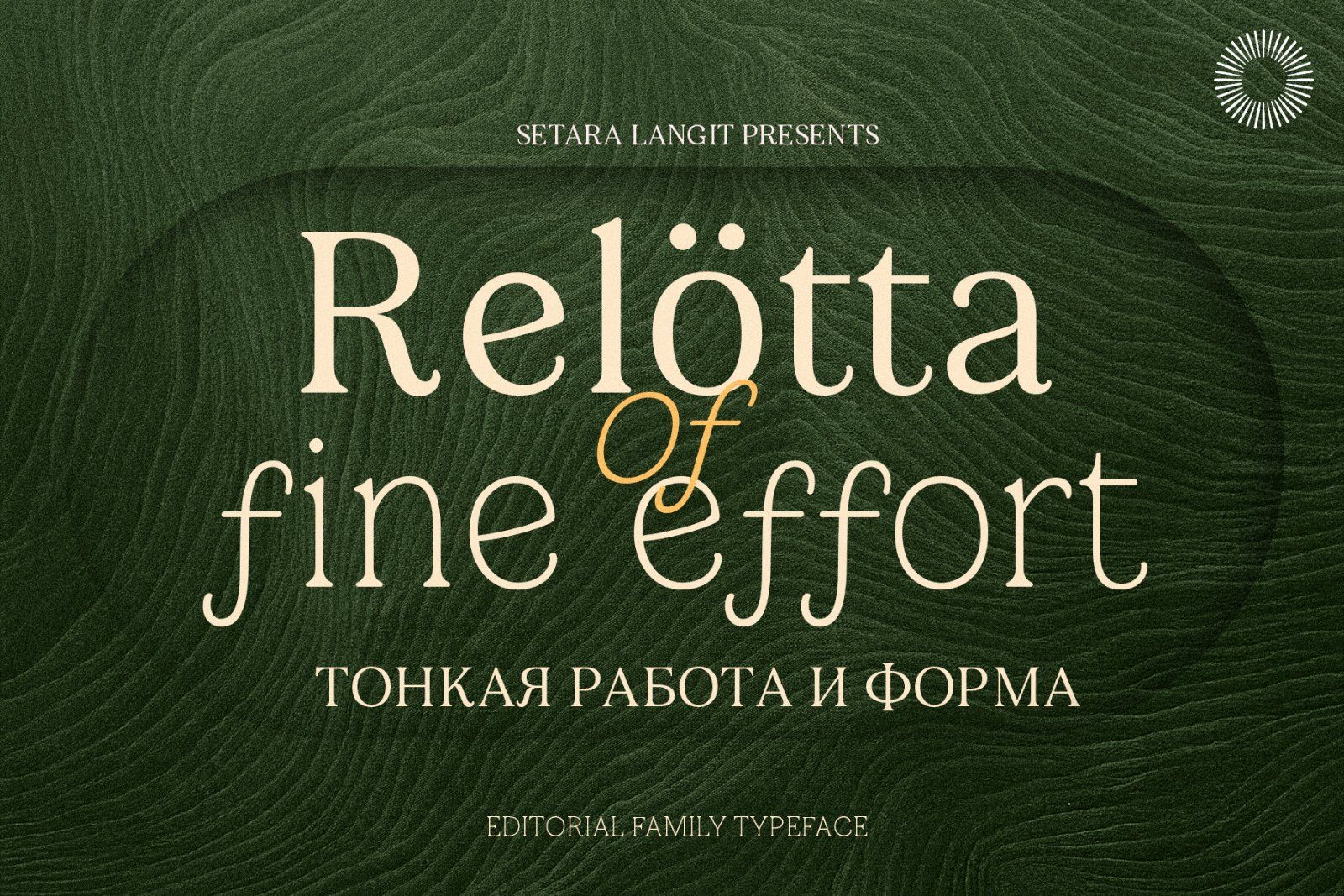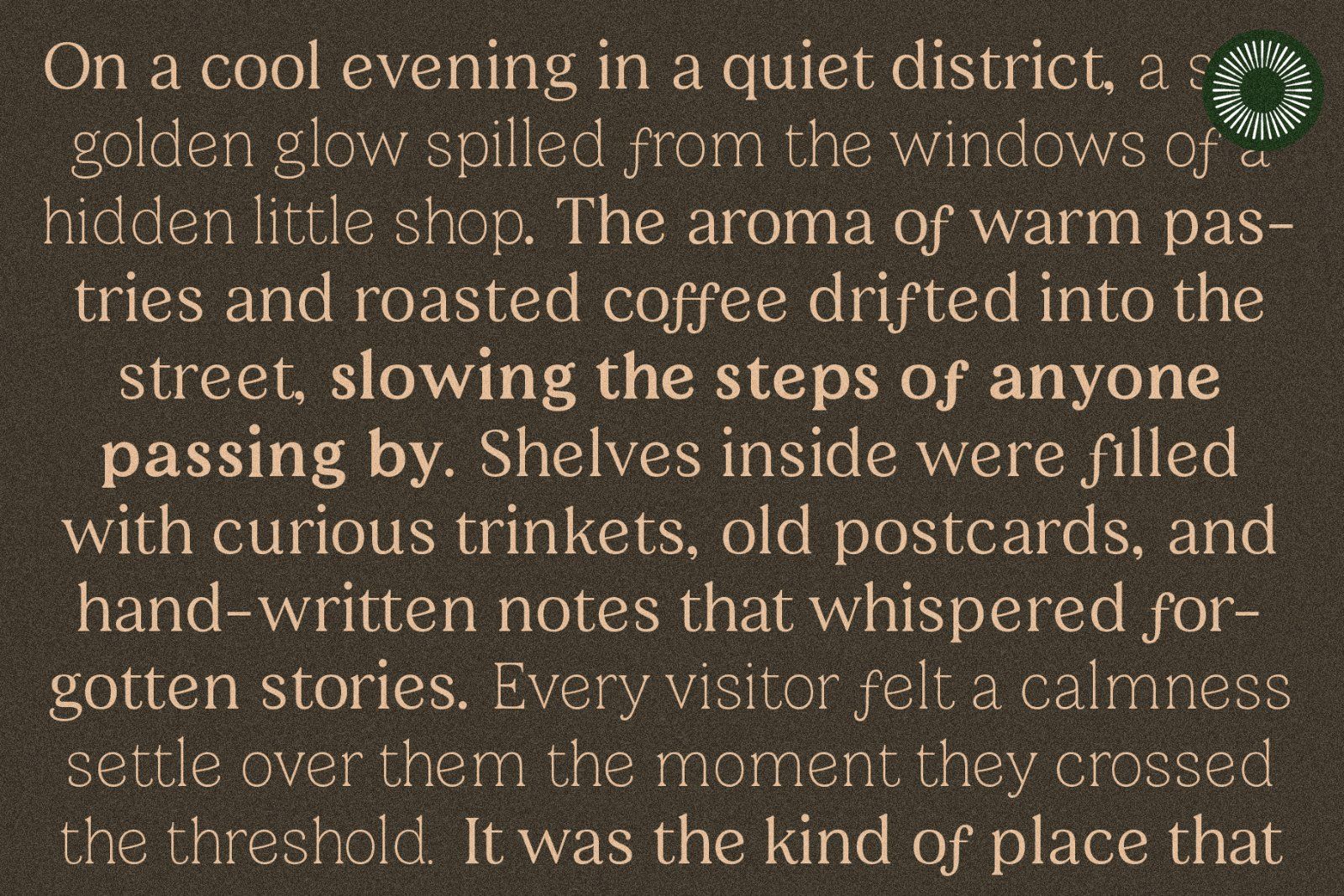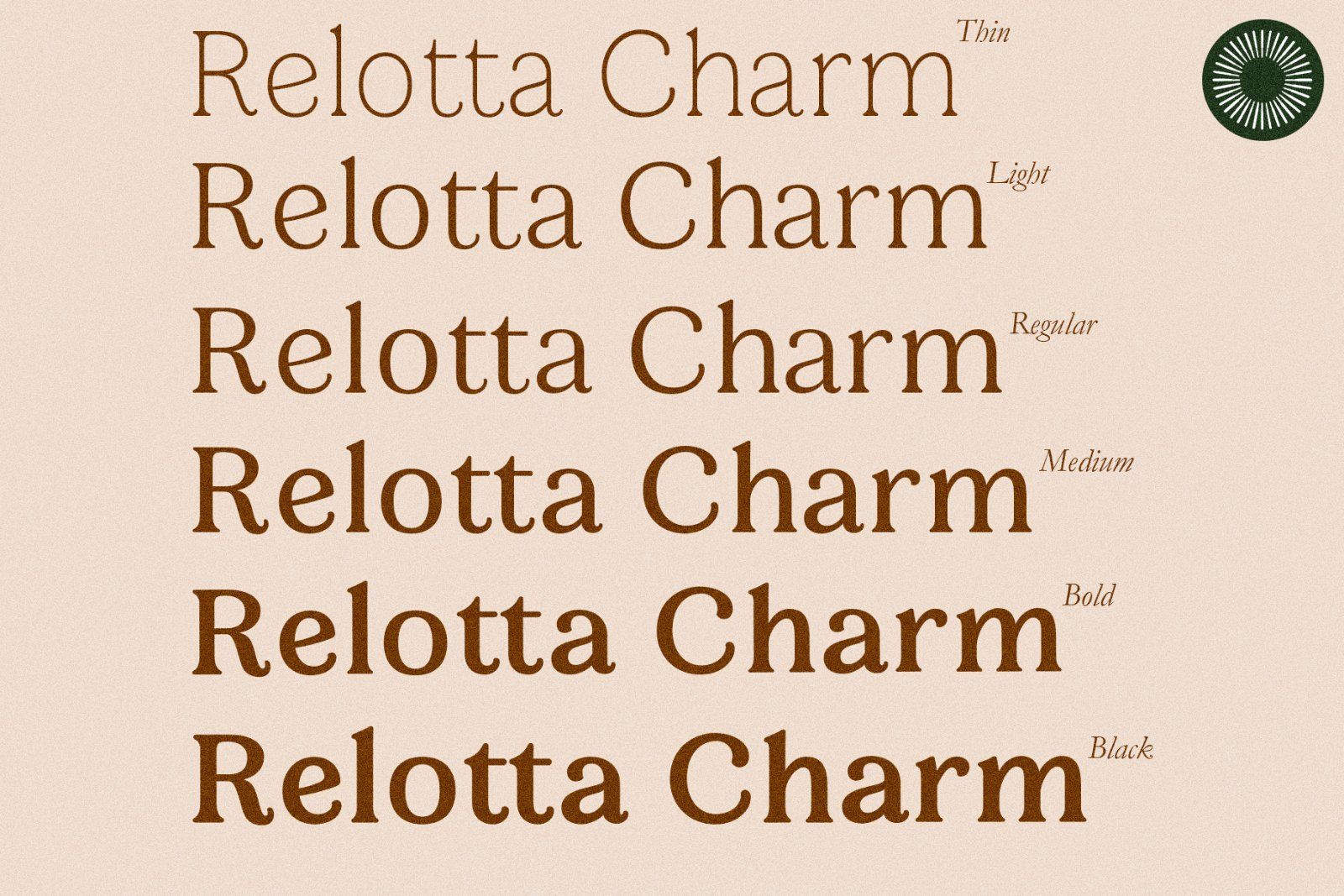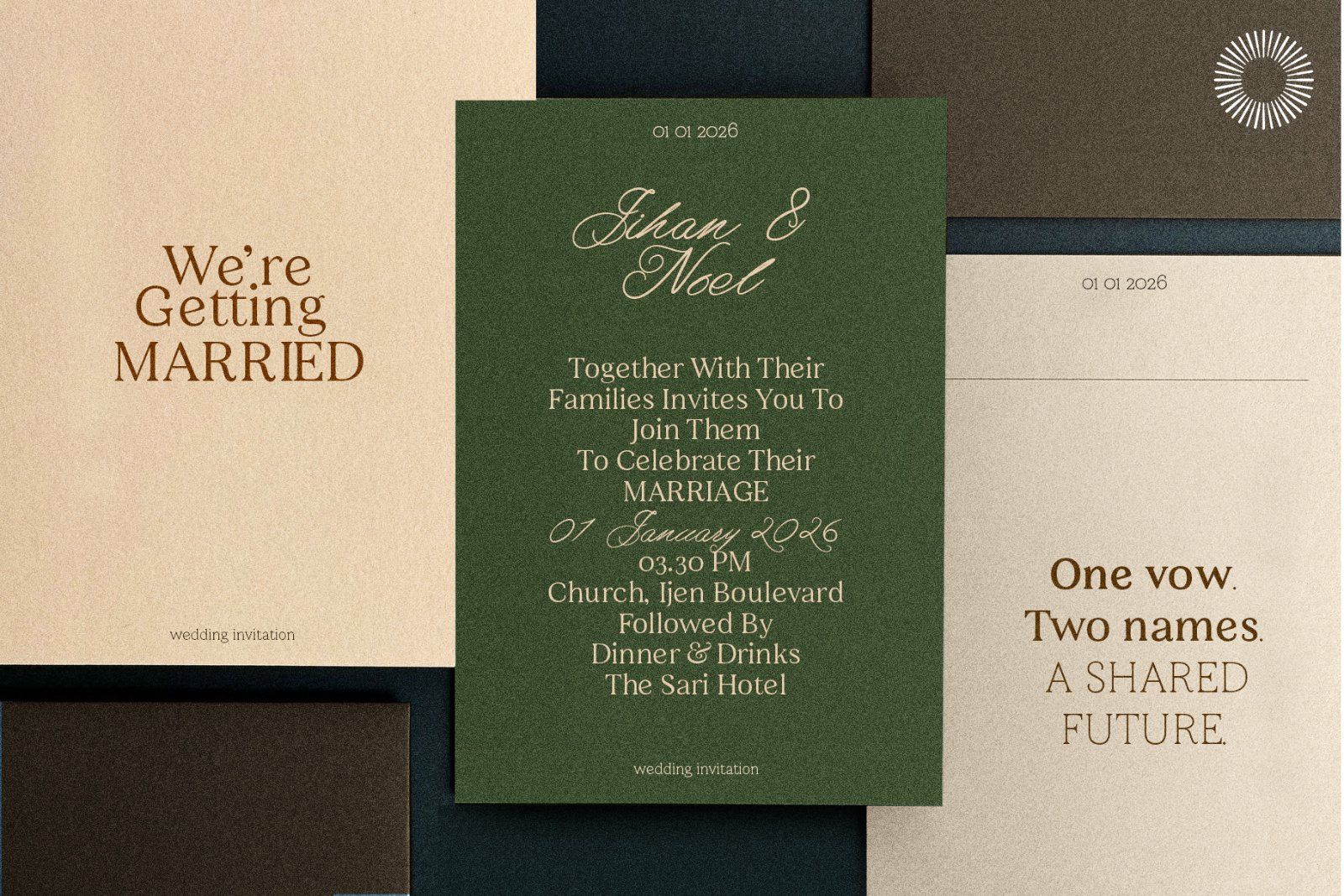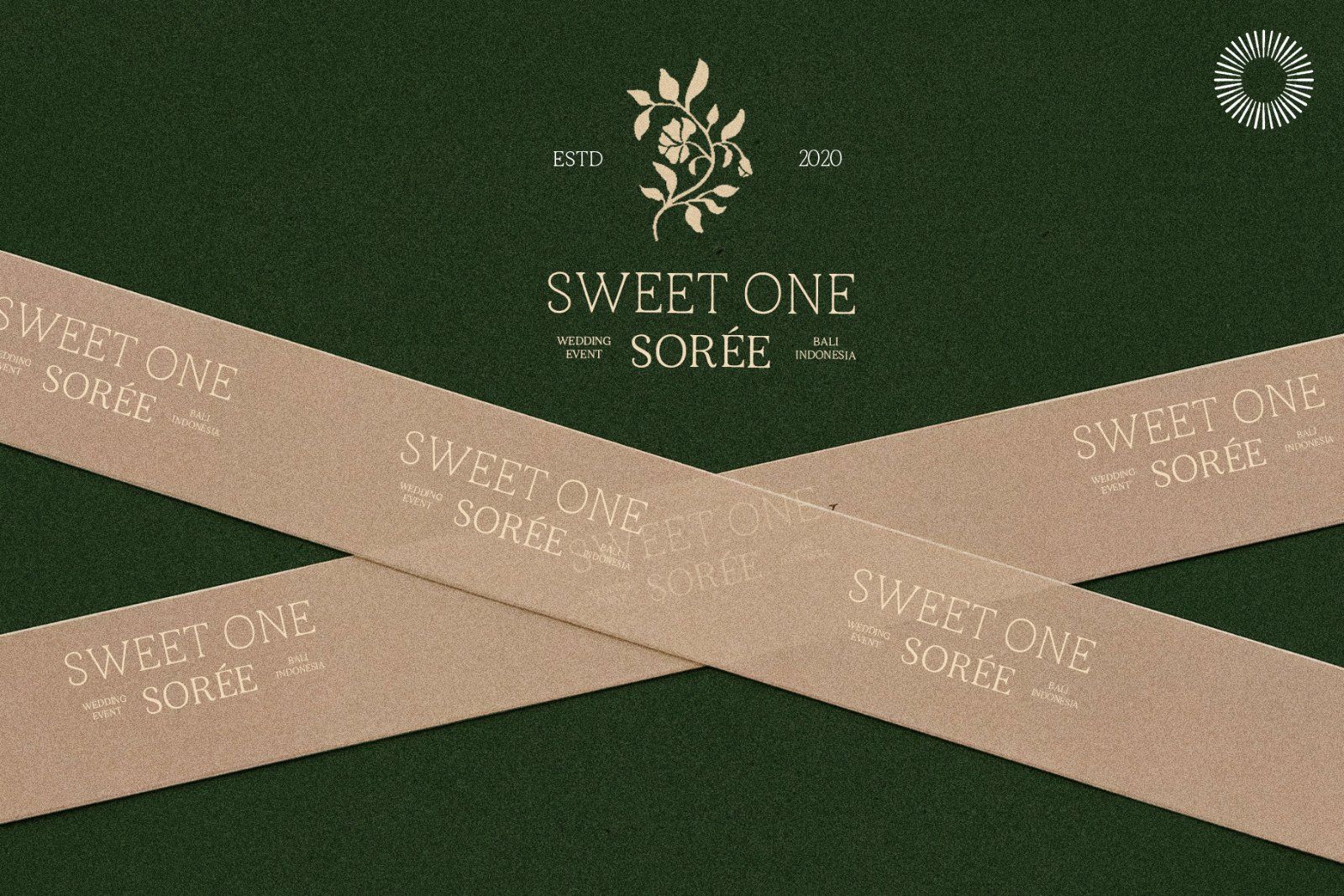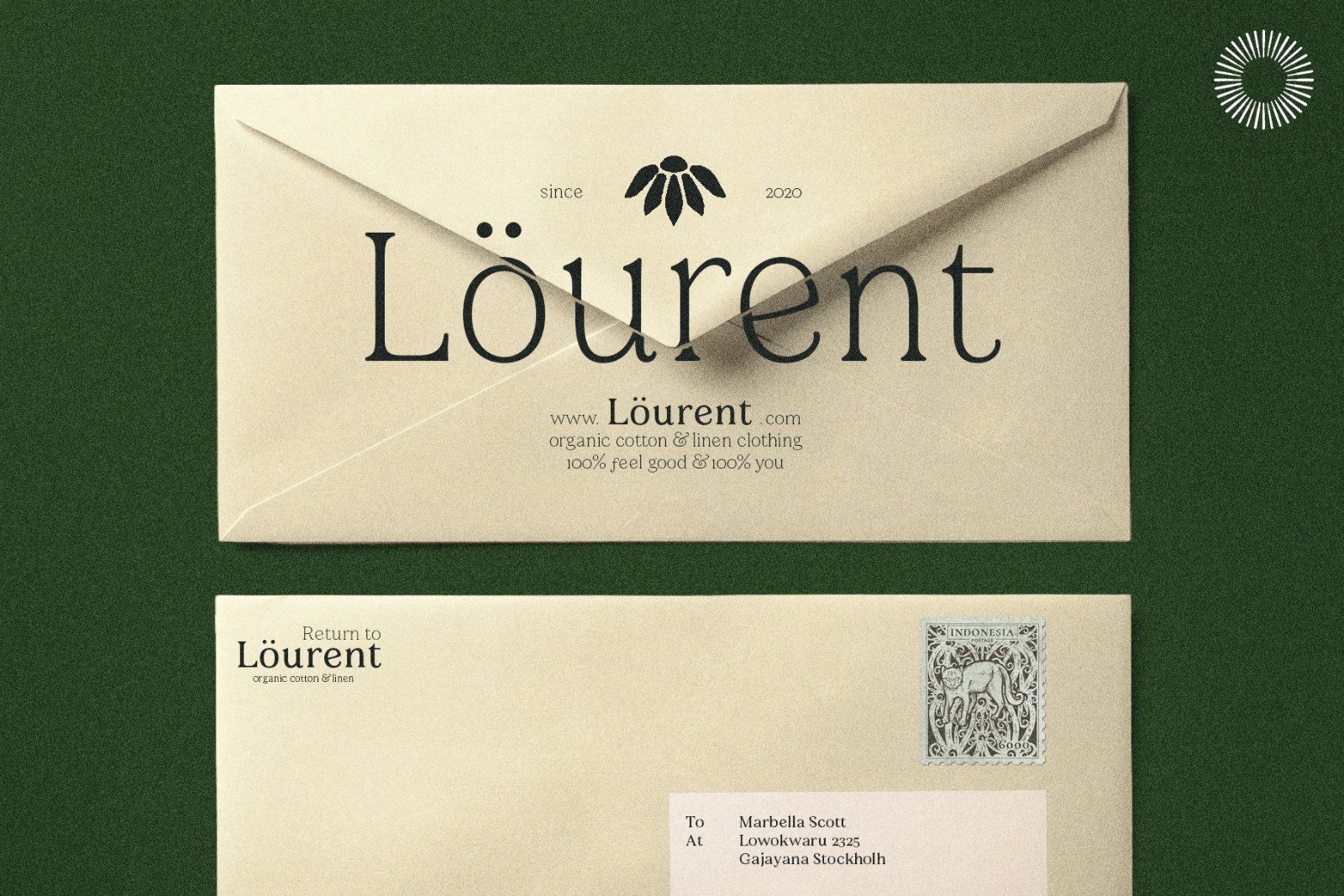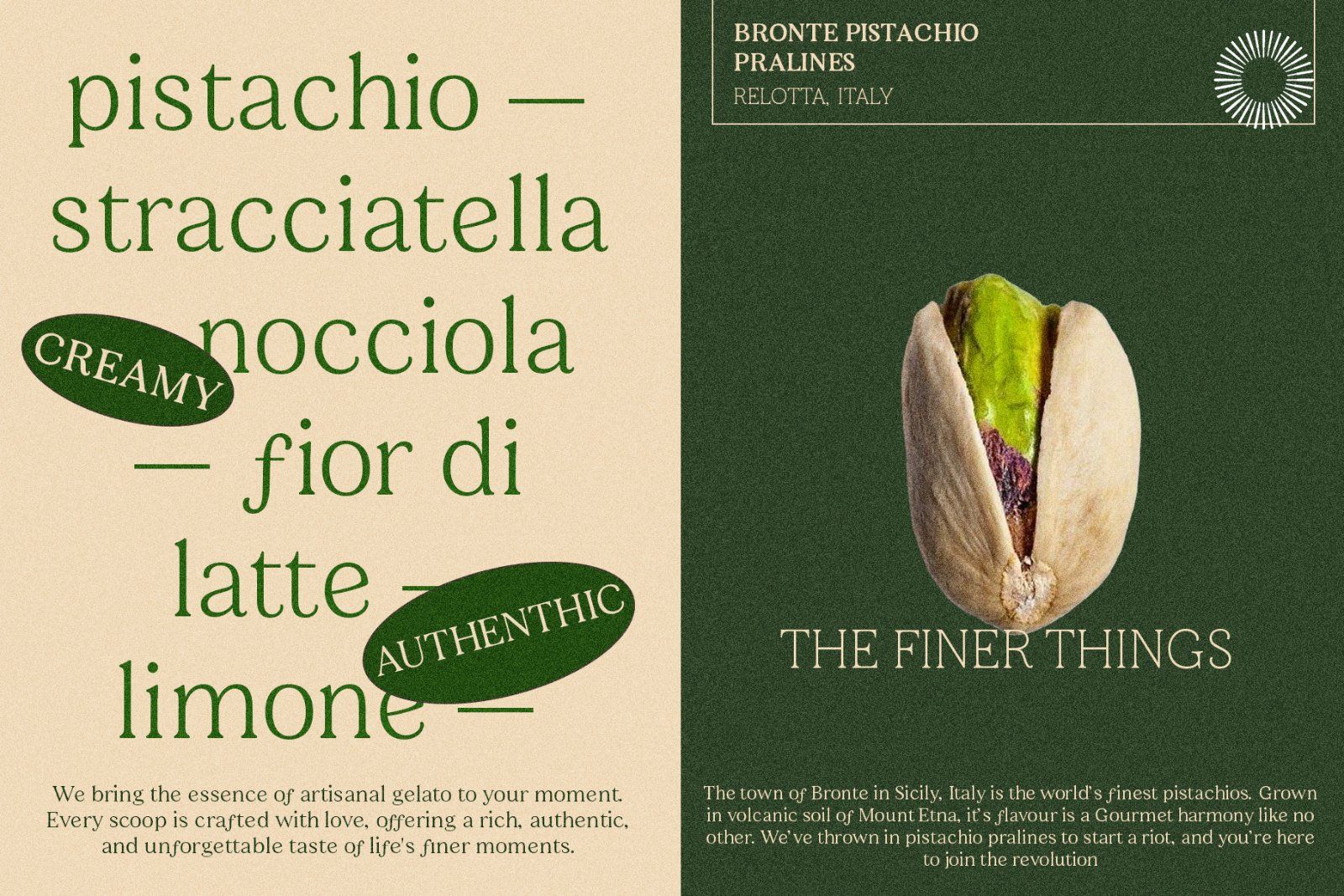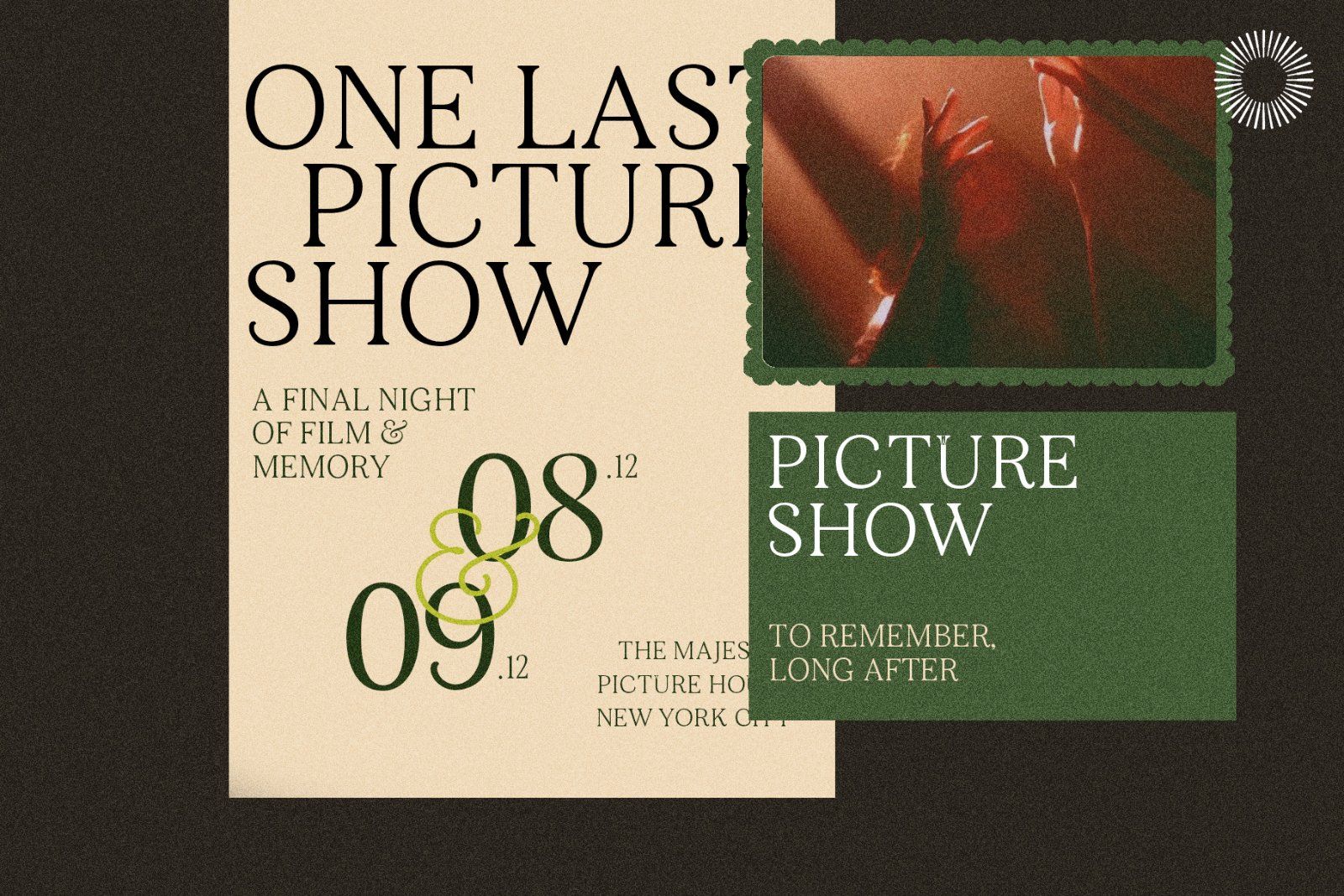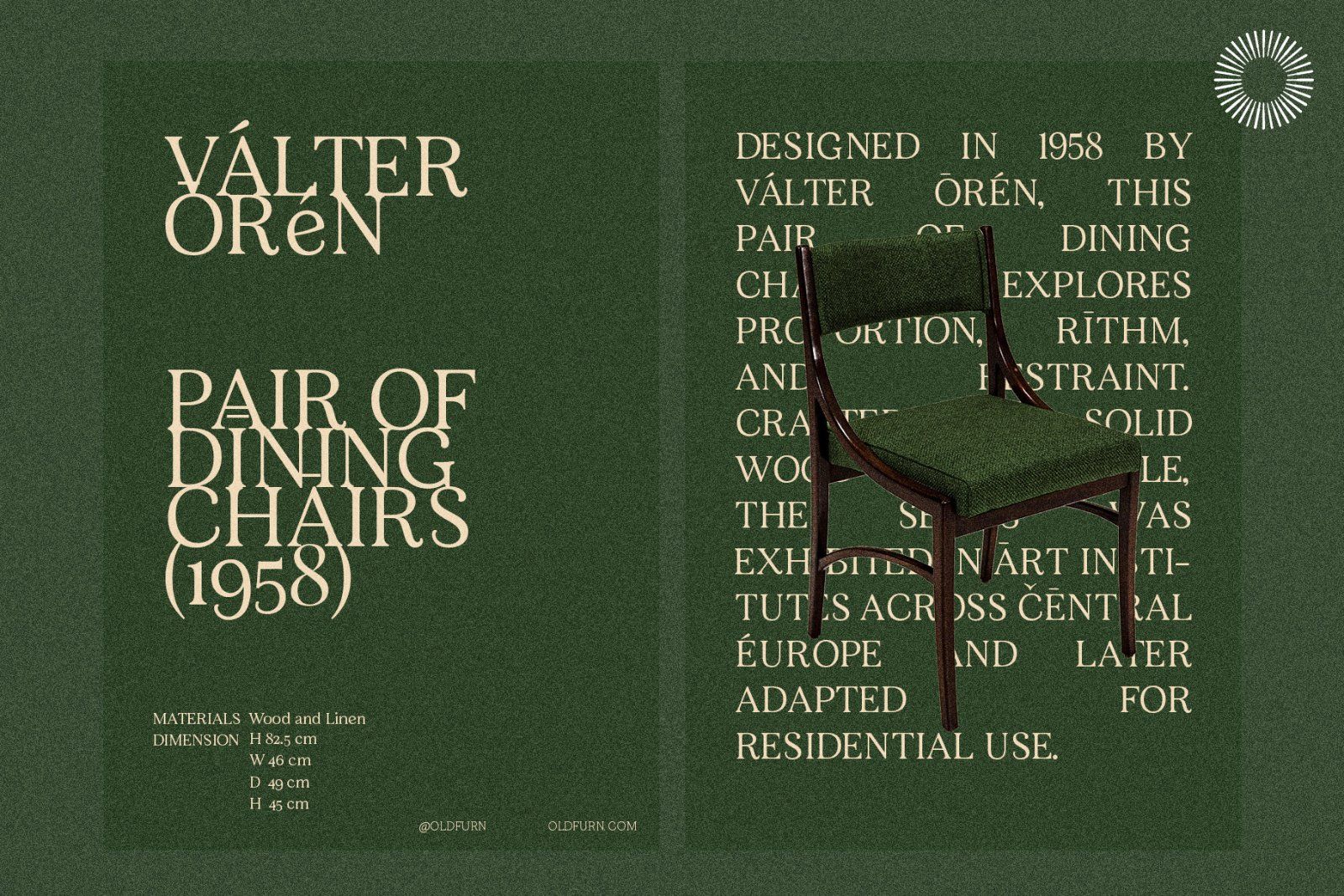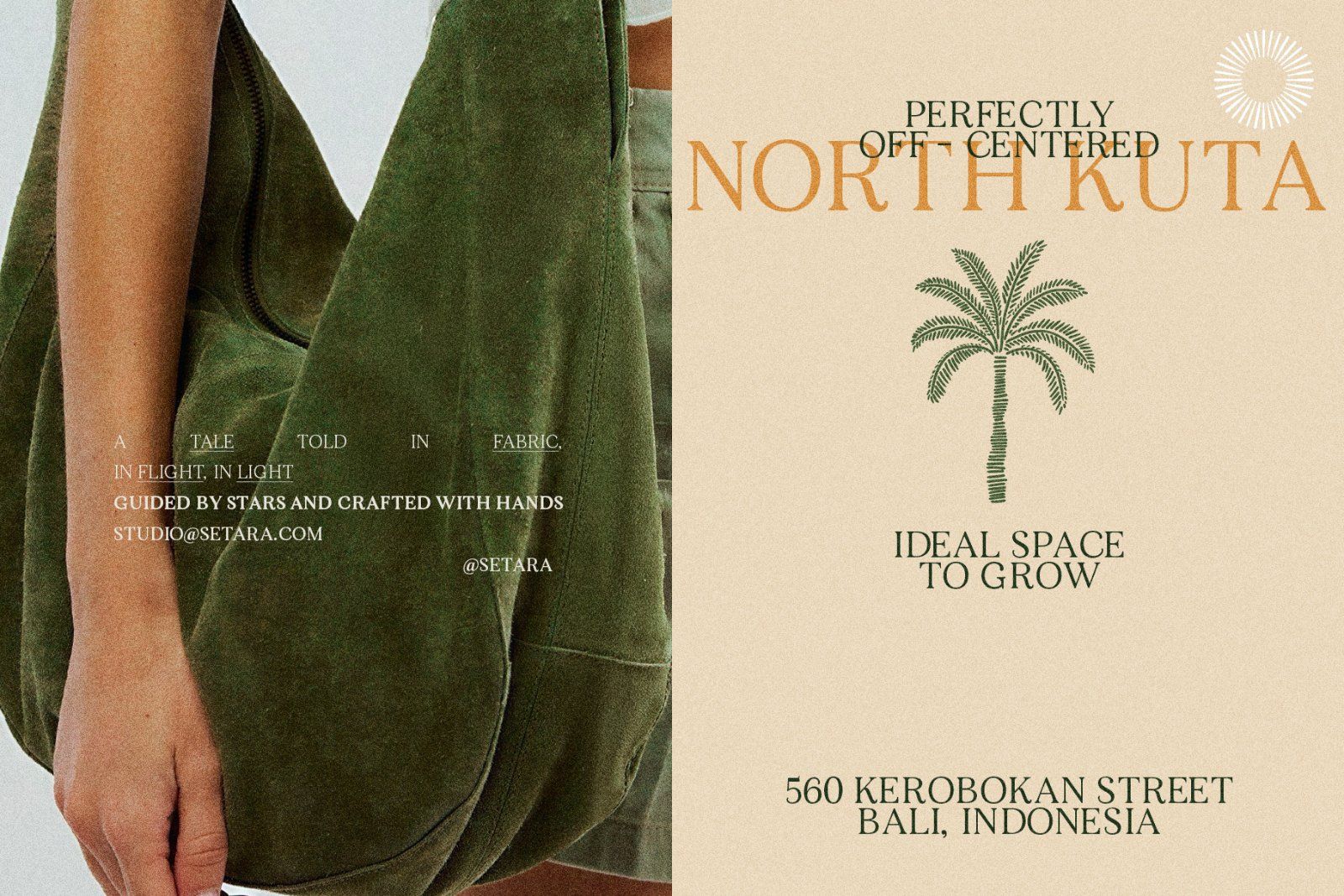
Relotta — Editorial Serif Typeface Relotta is an editorial serif typeface designed with careful attention to proportion, rhythm, and refined detail. Rooted in classical serif principles yet softened for contemporary use, Relötta is created to perform reliably across both display and text-oriented applications. The design features moderate contrast, gently sculpted curves, and balanced serifs that remain elegant without becoming ornamental. This makes Relötta versatile: strong enough for headlines and titles, yet controlled enough for longer reading contexts such as editorials and books. Rather than following short-lived design trends, Relötta prioritizes clarity, consistency, and longevity, making it suitable for professional branding systems and publication work.